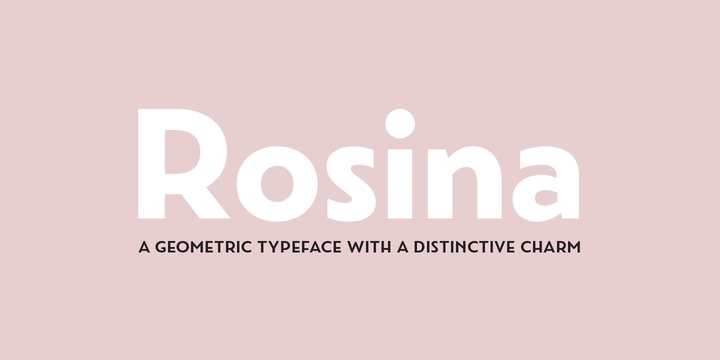
Rosina Font
Rosina Font is perfect for elegant wedding invitations, luxury brand logos, sophisticated magazine layouts, book covers, greeting cards, restaurant menus, fashion branding, cosmetic packaging, jewelry advertisements, and premium product labels. This versatile typeface excels in both digital and print applications where refinement is key.
What makes Rosina Font exciting is its perfect balance between classic elegance and modern sophistication. The carefully crafted letterforms feature graceful curves and refined details that capture attention while maintaining excellent readability. Its timeless appeal makes it suitable for both contemporary and traditional design projects, offering designers the flexibility to create stunning visual hierarchies that resonate with upscale audiences.
The Rosina Font family typically includes multiple weights and styles such as Regular, Light, Bold, and Italic variations. Some versions may also feature extended character sets with special ligatures, alternates, and ornamental glyphs that enhance its decorative potential. These family options provide designers with comprehensive typographic tools for creating cohesive brand identities and editorial layouts.